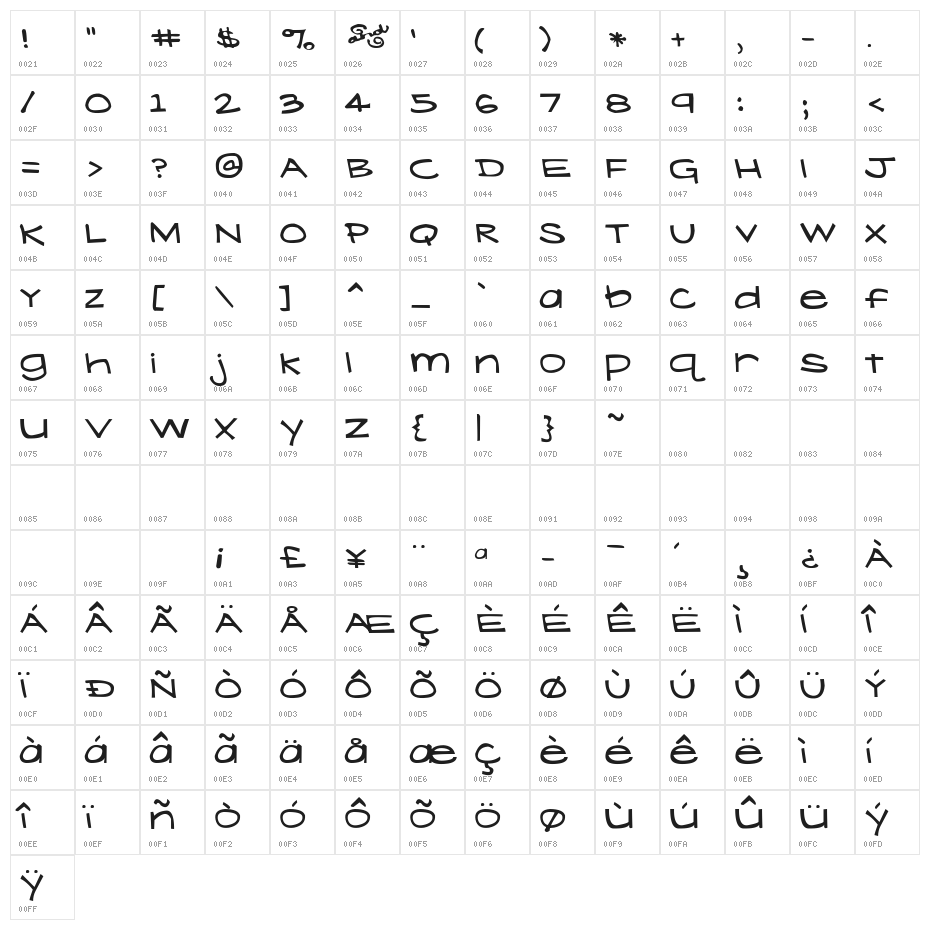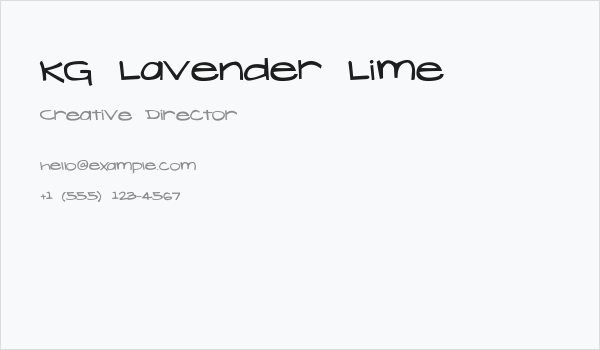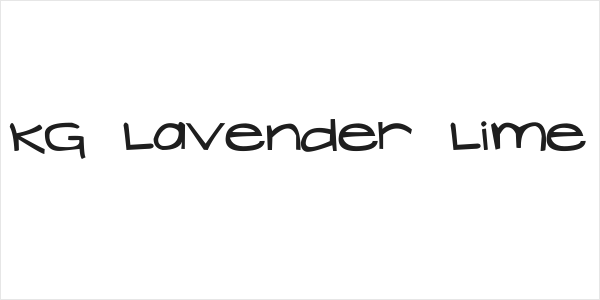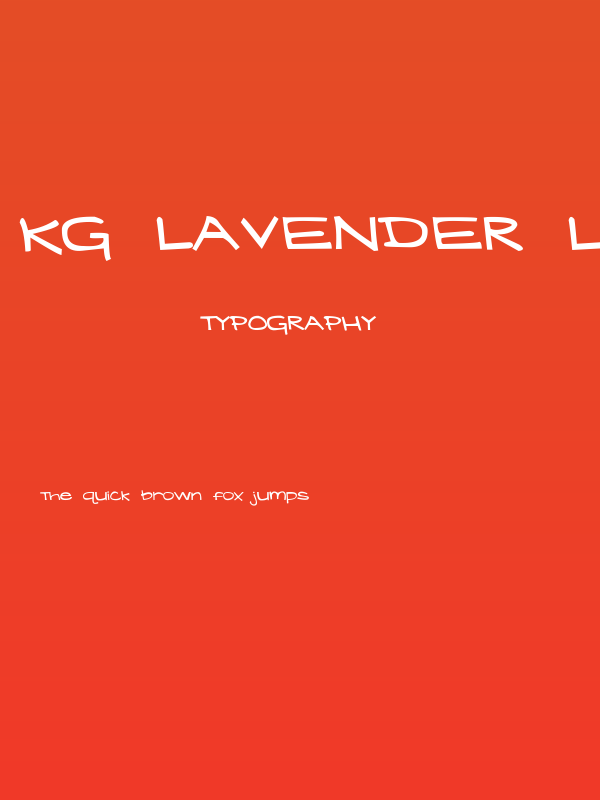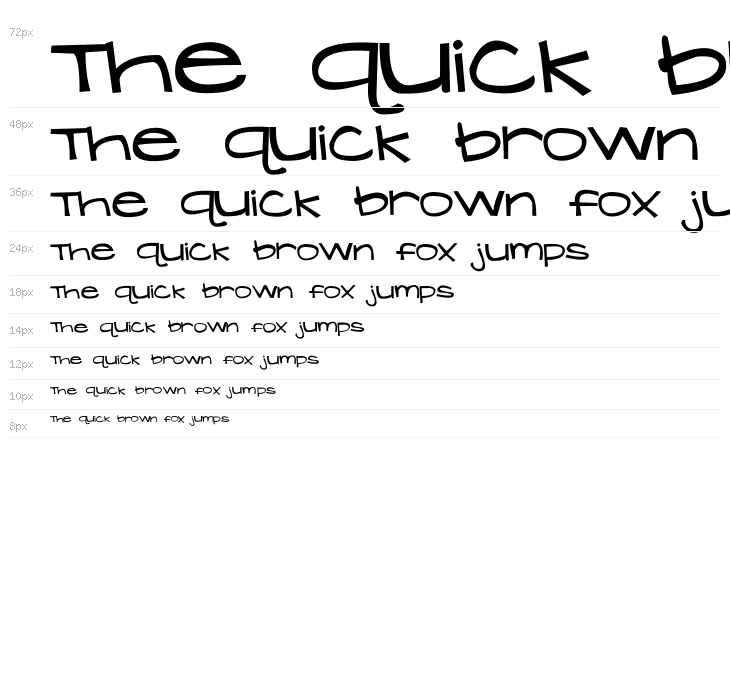
KG Lavender Lime Font
KG Lavender Lime Description
This playful and whimsical font features a unique handwritten style with a touch of quirkiness. The characters are slightly tilted, giving them a dynamic and lively appearance. The strokes are smooth and rounded, creating a friendly and approachable feel. The uppercase letters are bold and prominent, while the lowercase letters maintain a consistent flow. Numbers and special characters are designed with the same playful aesthetic, ensuring a cohesive look across all text elements. This font is perfect for projects that require a fun and informal touch.
Overall StylePlayful
Use CaseHeadlines, Logos, Informal Text
Proposed ProjectsIdeal for children's books, greeting cards, playful branding, and creative posters.